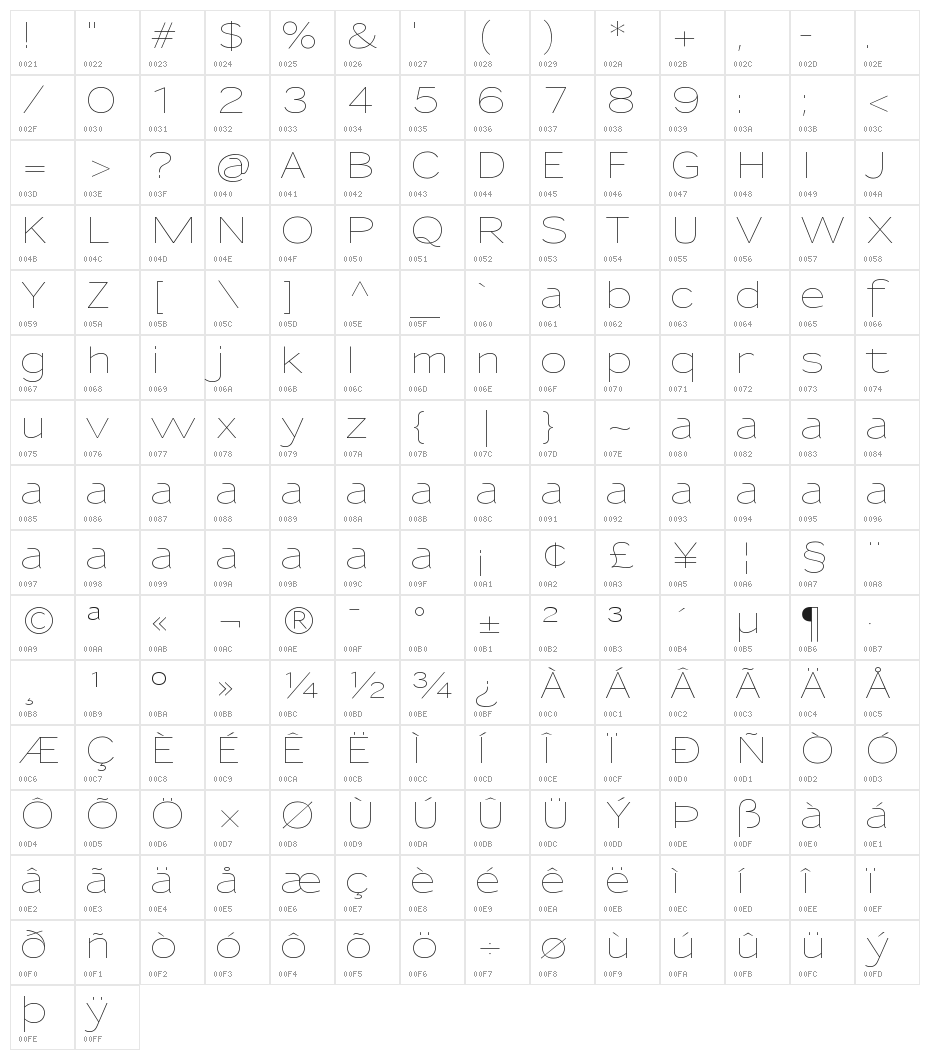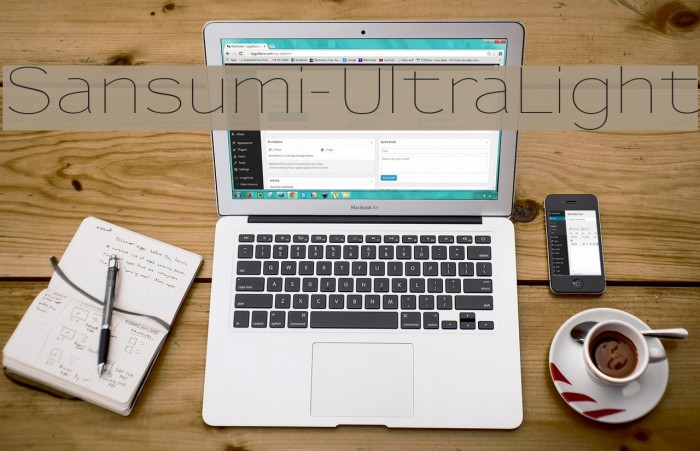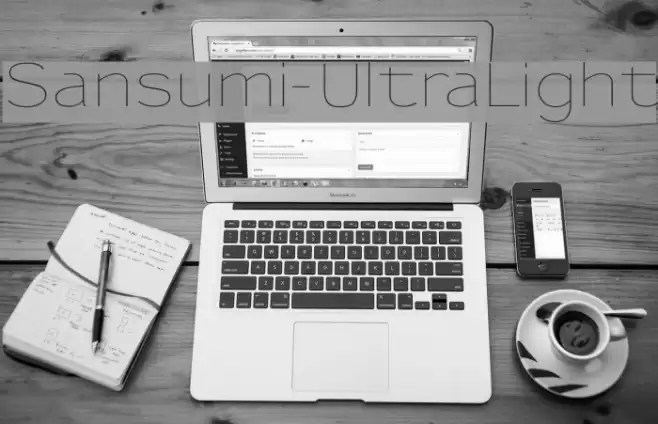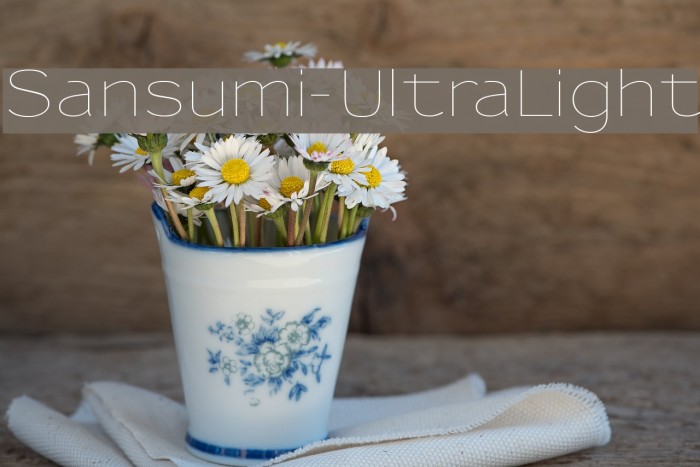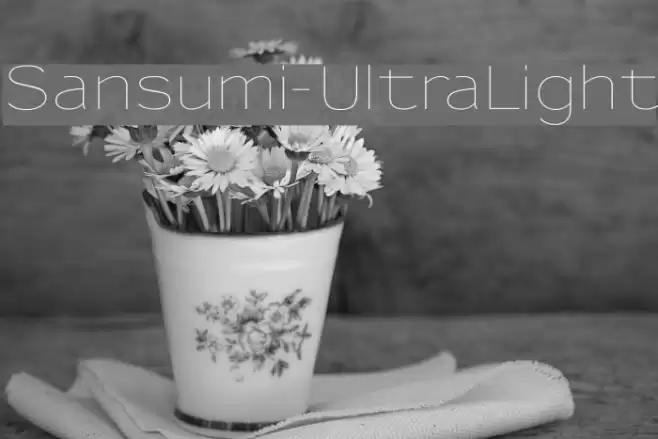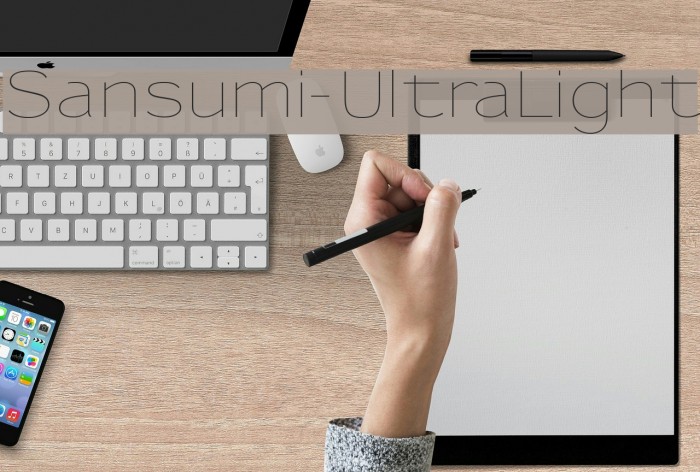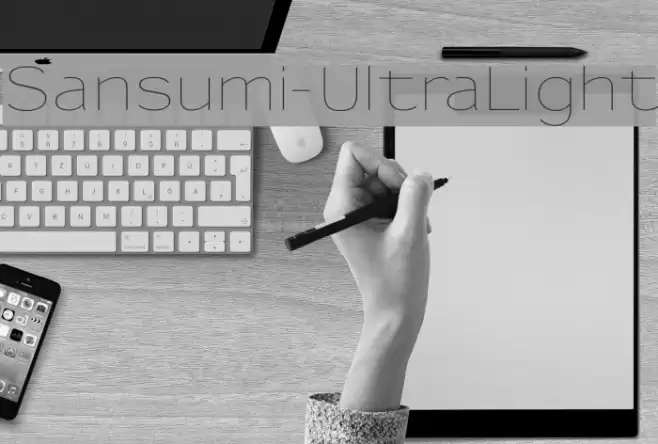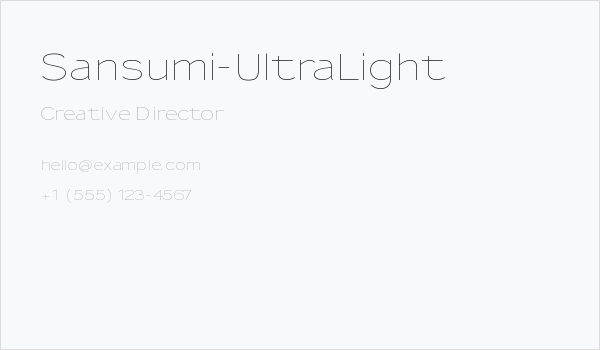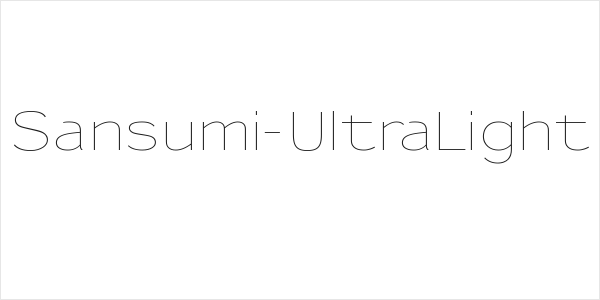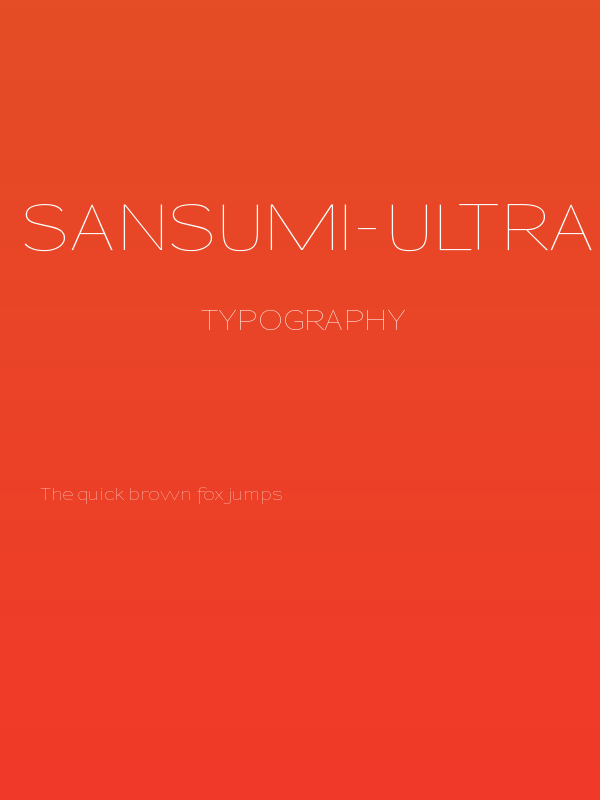
Sansumi-UltraLight Font
Sansumi-UltraLight Description
This font features a sleek and ultra-light design, characterized by its minimalistic and clean lines. The characters are crafted with a modern aesthetic, emphasizing simplicity and elegance. The uppercase and lowercase letters maintain a consistent height and width, creating a harmonious visual flow. The numerals are designed with the same thin strokes, ensuring readability while maintaining the overall lightness of the font. Special characters are included, each designed with the same attention to detail and minimalism. This font is ideal for projects that require a contemporary and airy feel, making it suitable for digital interfaces, branding, and editorial design.